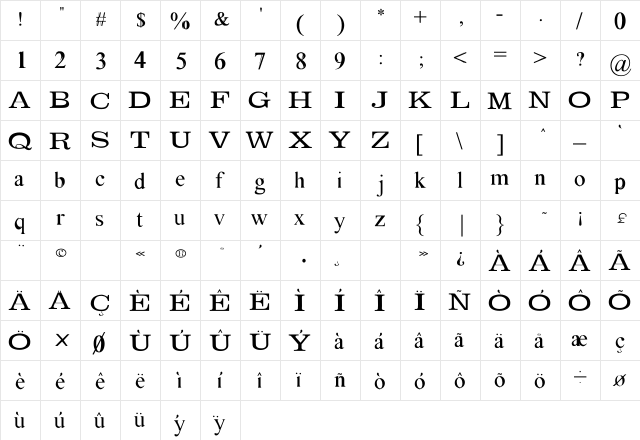
Absortile-Bold Bold
Design Context for Absortile-Bold Typeface
Absortile-Bold is a composed and adaptable typeface that performs quietly and consistently across a wide range of design contexts. Its bold stroke weight gives it real presence on the page.